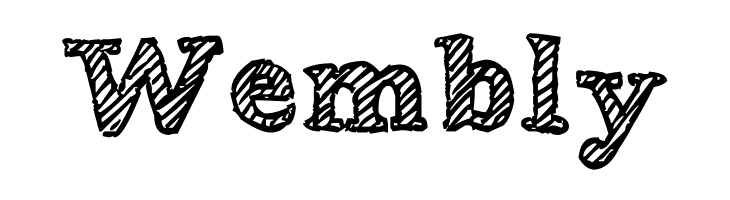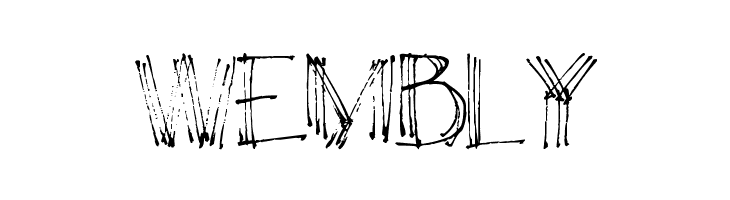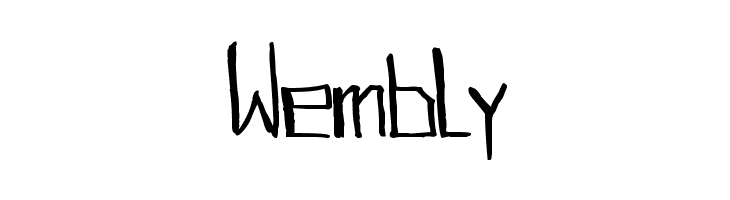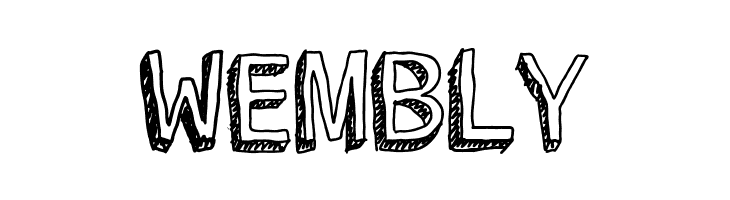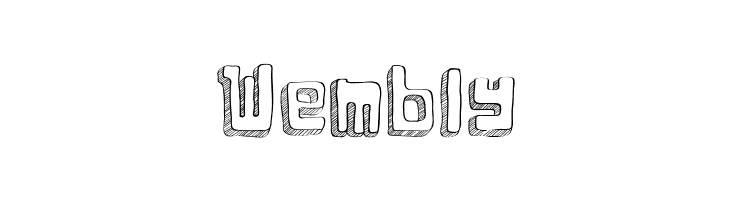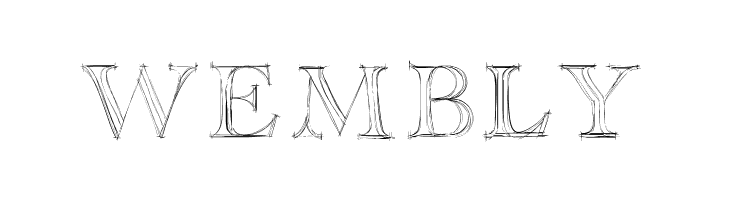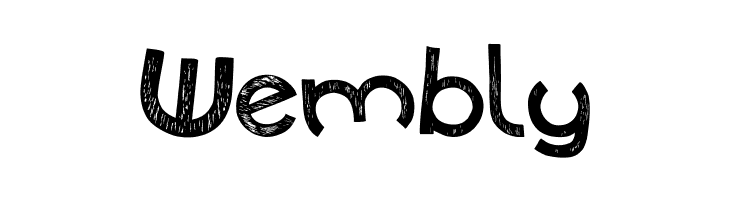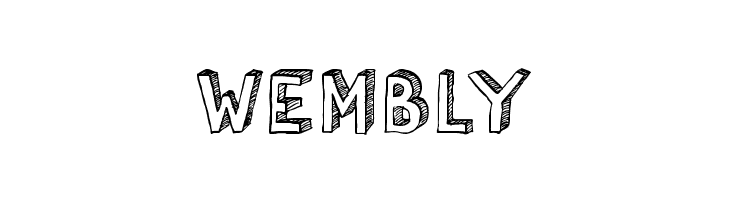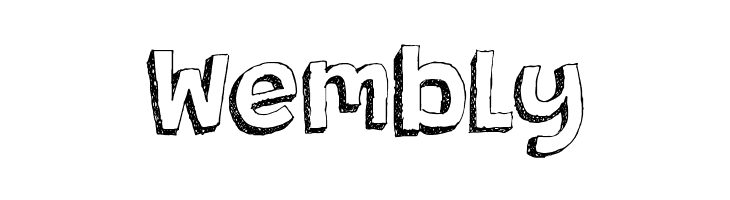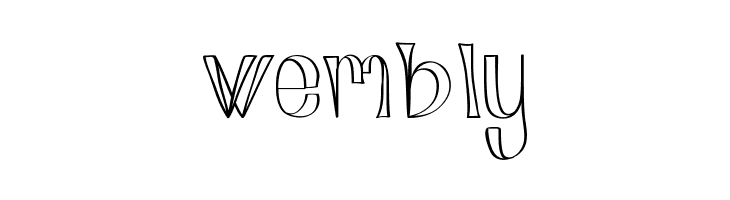
( Alexander Kaiser - pooliestudios.com )
A sketch-like, hand-drawn font with a dynamic, textured appearance.
( Becky S )
A playful, hand-drawn font with a sketch-like, textured appearance.
( Botond Bokor - botondbokor.com )
A sketch-like, hand-drawn decorative font with an artistic and textured appearance.
( Botond Bokor - botondbokor.com )
A hand-drawn, sketch-like font with irregular strokes and a bold, artistic style.
( Docallisme HAS Feat Dutsky - docallisme.blogspot.com )
A bold, hand-drawn font with a playful, sketch-like style.
( Edgar Castillo - www.edgarmc.com )
A bold, sketch-like font with textured, hand-drawn characters.
( Ernesto Peña Alonso - google.com/+ernestopeñaalonso )
An edgy, hand-drawn font with sketch-like strokes and a dynamic, raw appearance.
( Federal TM - www.wearefederal.net )
A sketch-like, hand-drawn font with artistic and informal characteristics.
( Felipe Meneses - twitter.com/caricuero )
A bold, textured font with a hand-drawn, sketch-like appearance.
( Hanny Sandoval - www.behance.net/hannysandoval )
A whimsical, sketch-like handwritten font with dynamic strokes.
( Hanoded - David Kerkhoff - www.hanodedfonts.com )
A dynamic, sketch-like font with an edgy, hand-drawn appearance.
( Hanoded - David Kerkhoff - www.hanodedfonts.com )
A bold, hand-drawn font with a playful, sketch-like appearance.
( Hanoded - David Kerkhoff - www.hanodedfonts.com )
A bold, hand-drawn font with a textured, sketch-like appearance.
( Heather T. - oohlalaartsy.blogspot.com )
A playful, hand-drawn font with tall, narrow letters and sketch-like outlines.
( JBFoundry - Jean Boyault - jean.boyault.pagesperso-orange.fr/ )
A hand-drawn, sketch-like font with a unique, artistic flair.
( Jay Mann )
A playful 3D font with a hand-drawn, sketch-like style.
( Jen Jones - www.jenjonesfonts.com )
A blueprint-inspired font with sketch-like details and bold outlines.
( Jen Jones - www.jenjonesfonts.com )
A playful, hand-drawn font with a sketch-like, double-line design.
( Jonathan S. Harris - www.tattoowoo.com )
A playful, hand-drawn font with a sketch-like, textured appearance.
( Leonard Posavec - LeoSupply.co - Leonard Posavec - leosupply.co )
A bold, sketch-style font with a hand-drawn, textured appearance.
( Marcus Burnette - www.mburnette.com )
A playful, hand-drawn font with sketchy, irregular lines and a casual, artistic style.
( Markus Schröppel - www.mschroeppel.de/ )
Pictographic, petroglyph-inspired font with hand-drawn symbols.
( Matt Bruinooge )
A sketch-like, hand-drawn font with dynamic, textured strokes.
( Murat Yegul - www.formatltd.com )
A sketch-like, cursive font with a hand-drawn, artistic style.
( Nick Cunha - www.alookingglass.com )
A playful, hand-drawn font with a sketch-like, artistic style.
( Ohab Tbj )
A sketch-like, hand-drawn font with overlapping strokes and a playful style.
( Pizzadude - Jakob Fischer - www.pizzadude.dk/ )
A playful, hand-drawn font with a sketch-like, textured appearance.
( Poemhaiku - Huong Le Thi Thu - www.behance.net/poemhaiku )
A dynamic, sketch-like handwritten font with fluid, cursive strokes.
( Robothaus - Patrick McGrath - robothaus.com )
A playful, hand-drawn font with a rough sketch style.
( Stasia Popova )
A playful, hand-drawn font with a striped, sketch-like appearance.
( The Autumn Rabbit - Louise Ross - www.theautumnrabbit.com )
A playful, whimsical handwritten font with sketch-like strokes.
( TwoNineFive - Maximillian Limpo )
A bold, sketch-like font with a hand-drawn, textured appearance.
( Vaclav Krejci - www.upir.org/ )
Playful, childlike doodle font with irregular, sketchy lines.
( Xerographer Fonts - Max Infeld - xerographer.blogspot.com )
A whimsical, hand-drawn font with a sketch-like texture and playful style.
( Xerographer Fonts - Max Infeld - xerographer.blogspot.com )
A playful, hand-drawn font with a bold, sketch-like appearance and textured details.